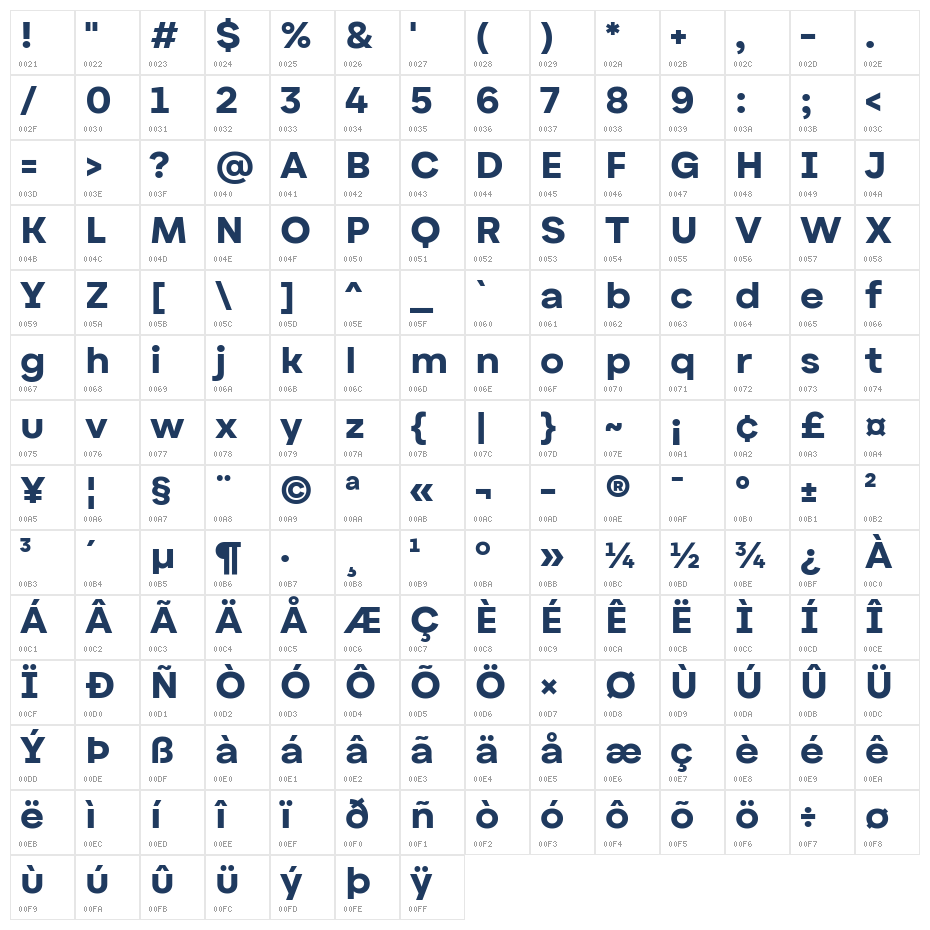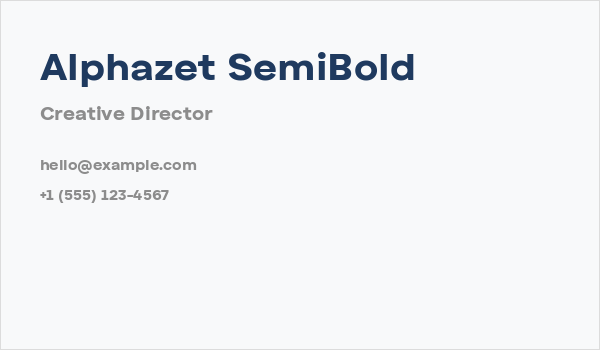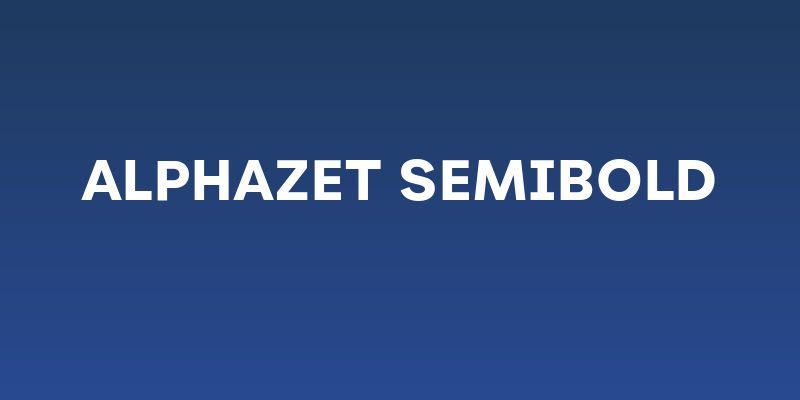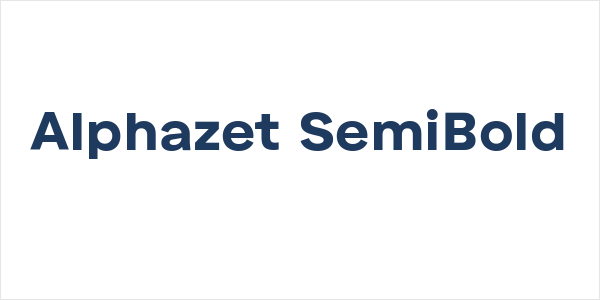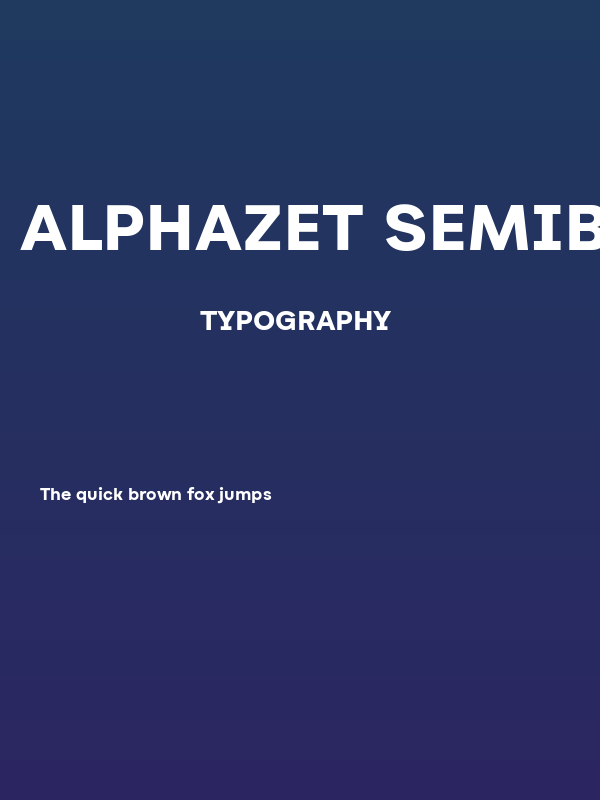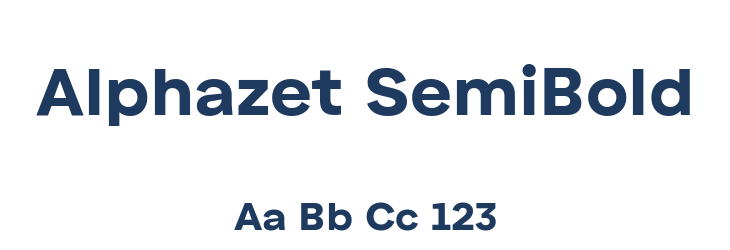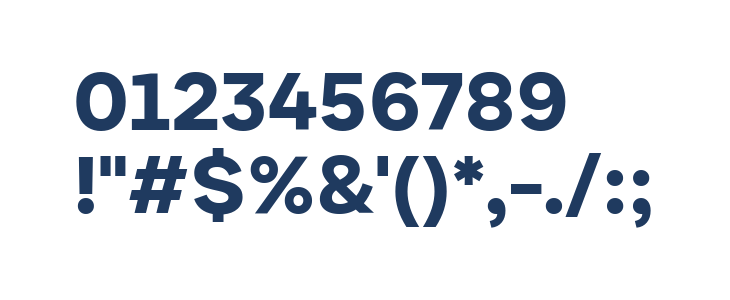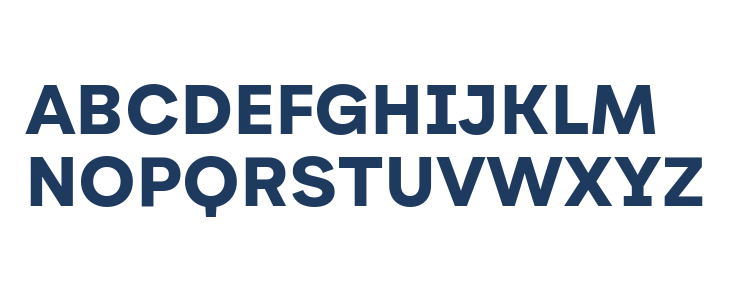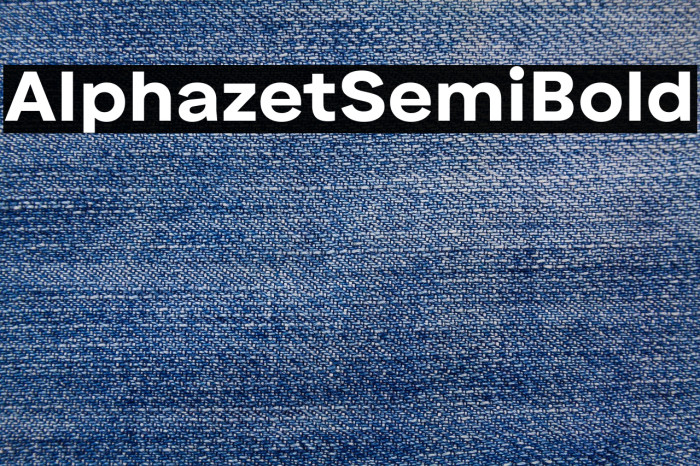
Alphazet SemiBold Font
Alphazet SemiBold Description
Bold, rounded sans-serif font with uniform stroke width and clean, modern appearance.
| Overall Style | Modern, Friendly |